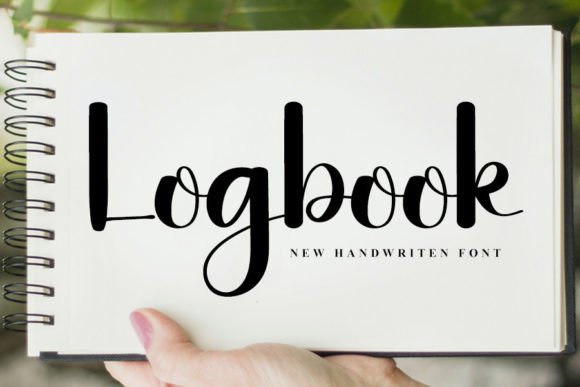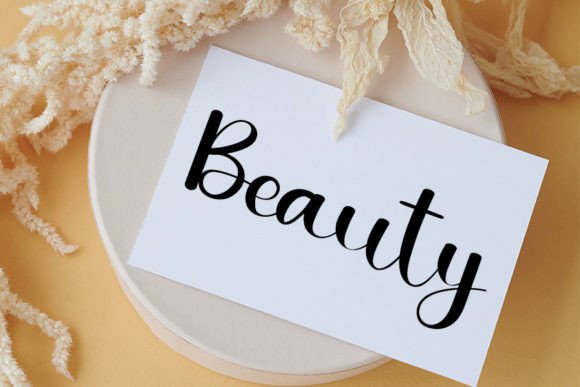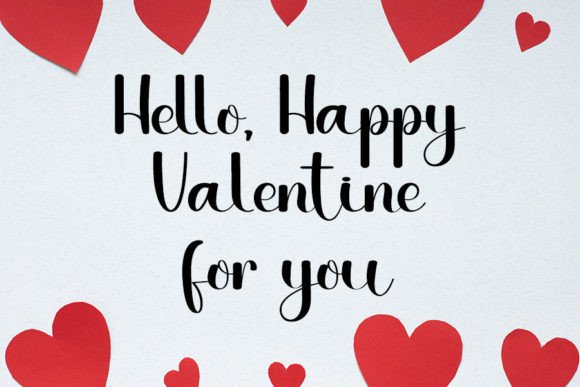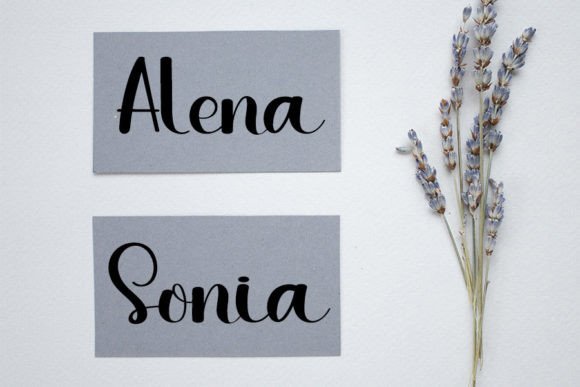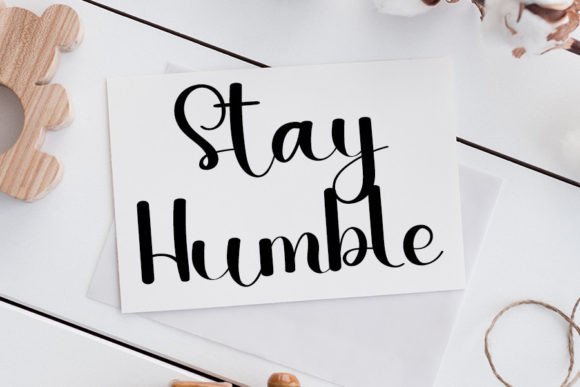
Logbook Font
What Is Logbook Font?
Logbook Font is a neat and beautiful handwritten script created to bring elegance and charm to your projects. Each letter has smooth curves and refined details that feel polished but still warm and inviting. Because of its timeless style, this font works perfectly for designs that need a graceful and personal touch.
You will notice how effortlessly Logbook adapts to many creative themes, from classic to modern.
Logbook is a versatile font you can apply to many types of design. For example, it is perfect for wedding invitations and save-the-date cards. The flowing script immediately adds romance and sophistication.
In addition, it works beautifully for logos and branding materials. If you want your business to look polished and memorable, Logbook helps you create a professional impression.
You can also use it on product packaging, labels, and handmade goods. Even a simple design feels premium and unique with this handwritten touch.
When you create social media graphics or blog headers, Logbook brings a classy and approachable look that captures attention. Even basic quotes or announcements feel more engaging.
Moreover, it’s a wonderful choice for greeting cards, book covers, and event signage. Your designs will feel cohesive, thoughtful, and beautifully finished.
Why Should You Choose Logbook Font?
There are many reasons to consider Logbook for your next project. First, it is very easy to read at all sizes. Even small details remain clean and legible.
Also, Logbook pairs well with modern sans-serif or classic serif fonts. This makes it simple to build balanced, professional layouts.
Designers appreciate that it looks polished right out of the box, saving time while delivering beautiful results.
Logbook Font adds elegance and personality to every project. For example, when you want your work to feel refined and inviting, this font makes it easy to achieve.
Even minimalist layouts look more stylish with Logbook’s smooth strokes. Whether you create invitations, packaging, or social media content, your designs will stand out.
Using a high-quality handwritten script also shows your commitment to detail and design excellence. This helps build trust with your audience and makes your work more memorable.
Logbook Font is more than just a typeface—it’s a design asset that helps you share ideas with clarity and style. From weddings and logos to packaging and social posts, this font adapts easily and leaves a lasting impression.